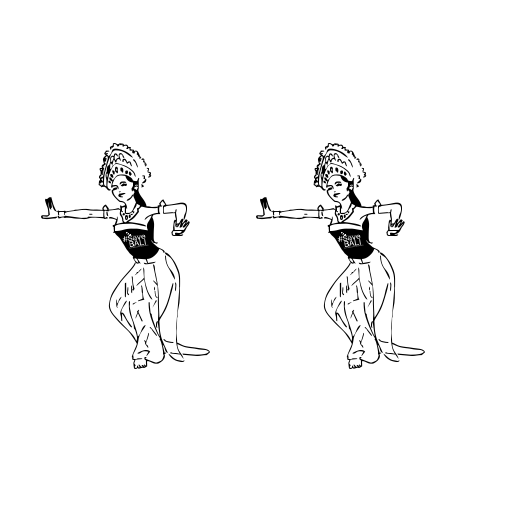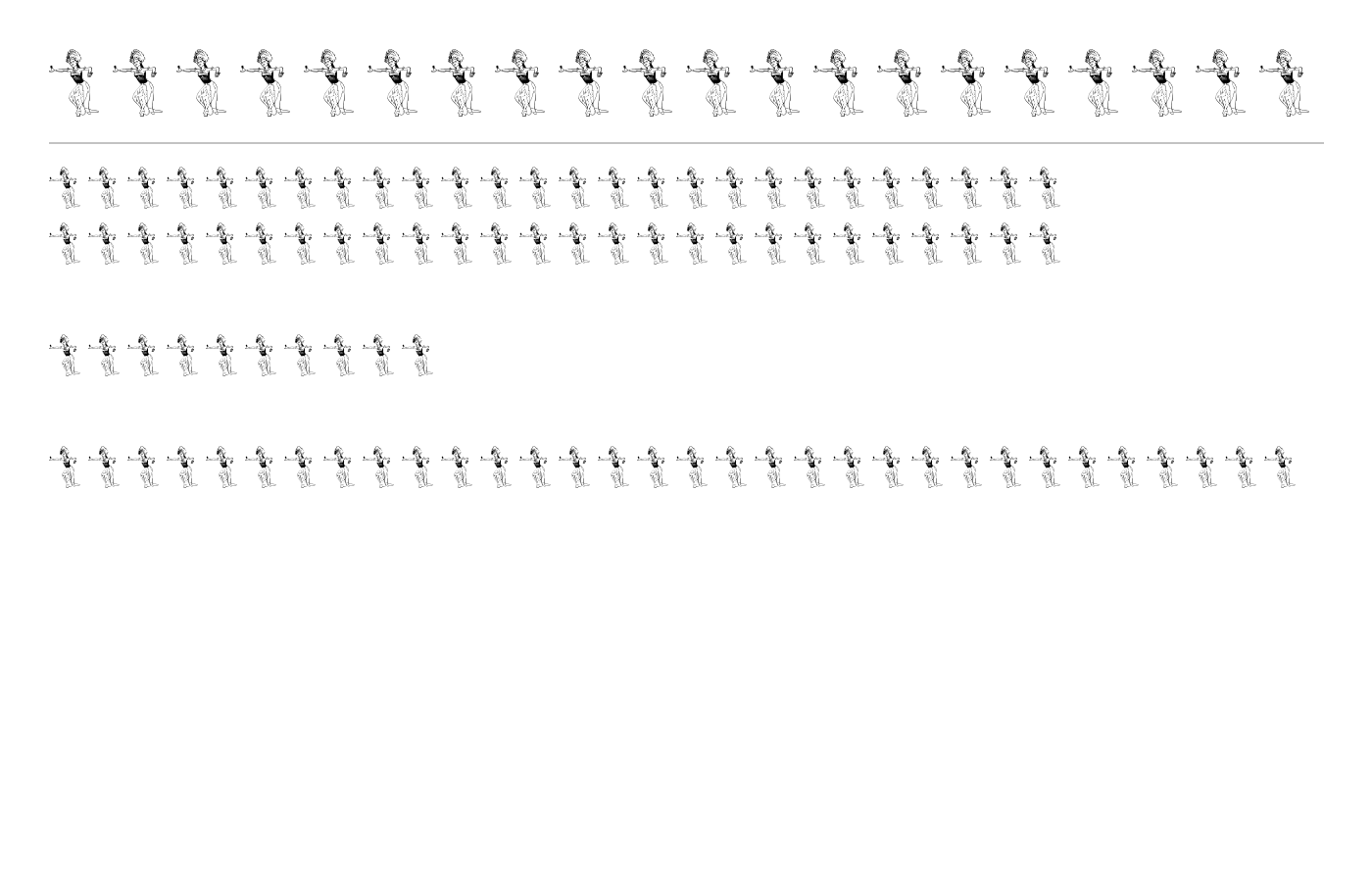
BALI TOLAK REKLAMASI is a decorative, symbol-based font featuring repeated intricate illustrations of a traditional Balinese dancer in various poses. This unique font does not use conventional letterforms but instead relies on detailed cultural imagery, making it ideal for artistic, cultural, or thematic projects that want to evoke Balinese heritage and style. It works best in logos, posters, or design elements where a strong ethnic or artistic statement is desired, providing a distinctive and visually rich aesthetic.
BALI TOLAK REKLAMASI Font
About BALI TOLAK REKLAMASI Font